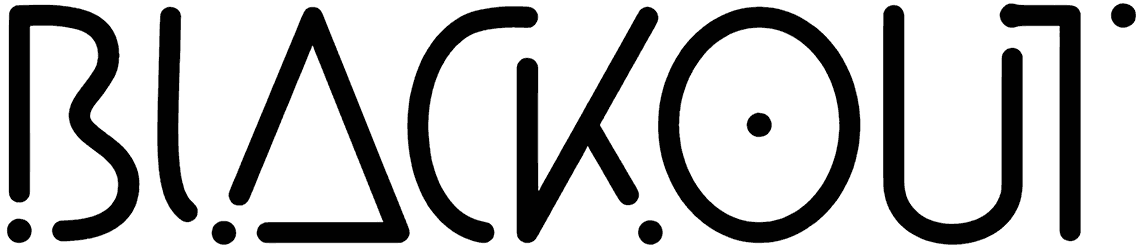
Blackout Font
Success in designing remarkable graphic content is what comes after choosing a wonderful techno font such as Blackout. Since it comes with a dotted and unique modern style, it can bring a sense of futuristic, innovation, dynamic, or eerie to your artwork.
This all-caps neon font can be included in movie posters, video game user interfaces, applications, social media posts, or business cards. Considering all its advantages, not fully supporting numbers would be easily overlooked.